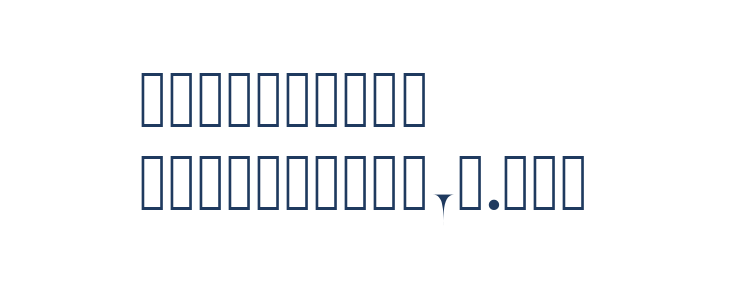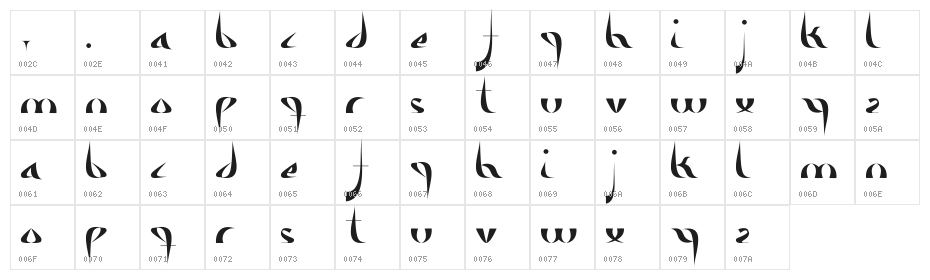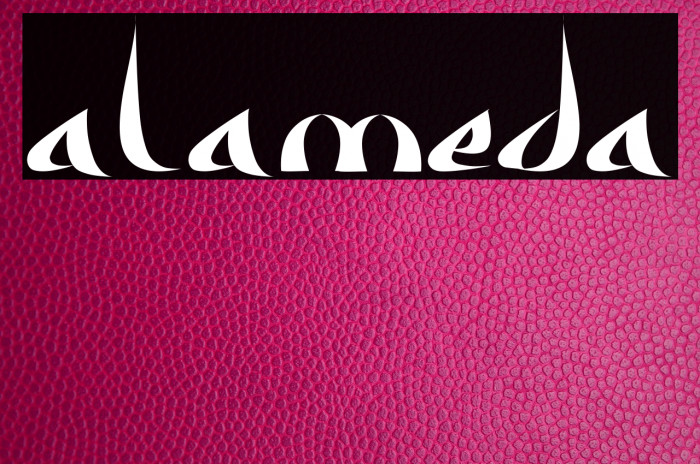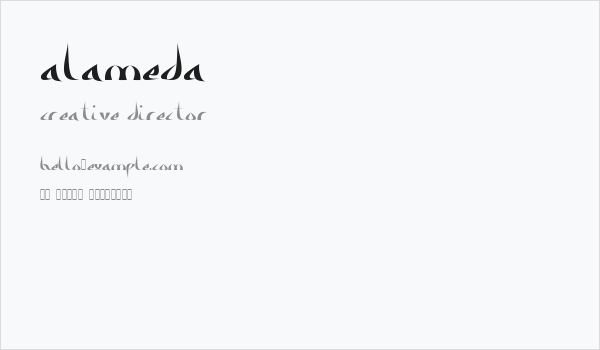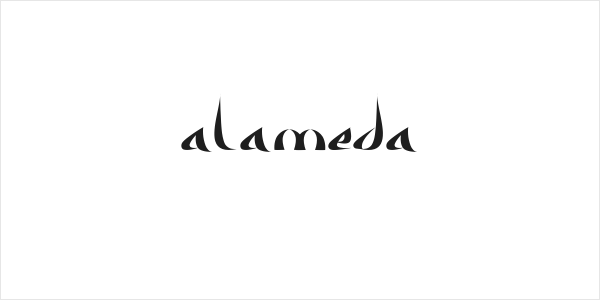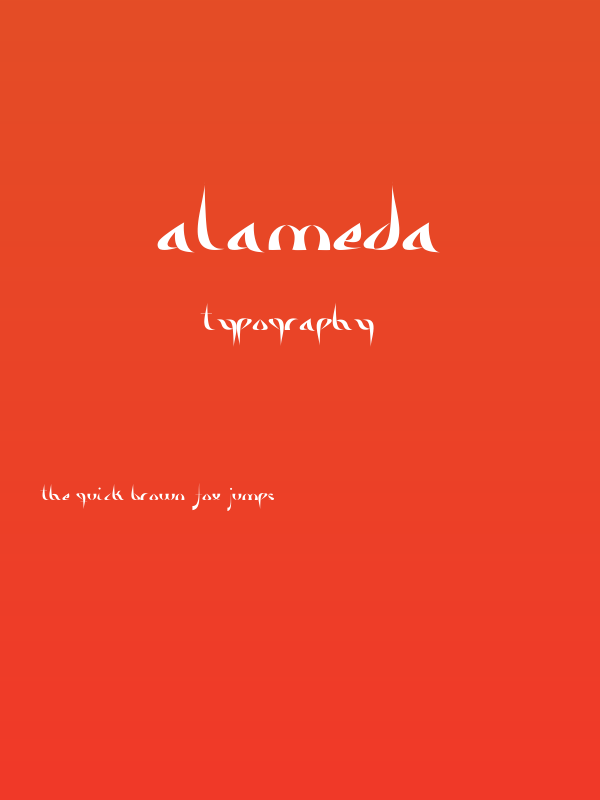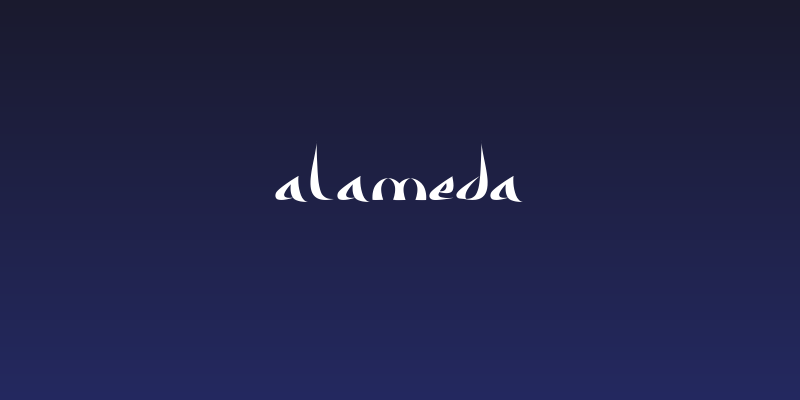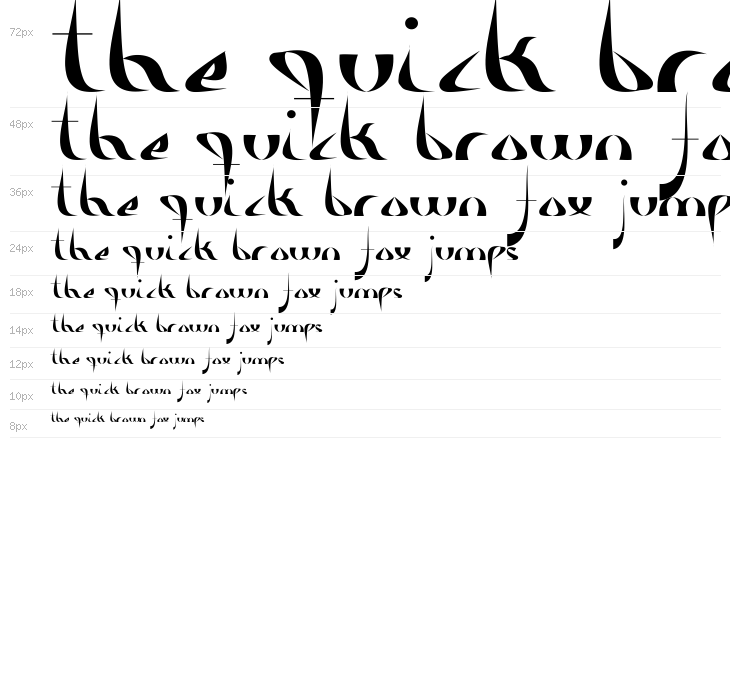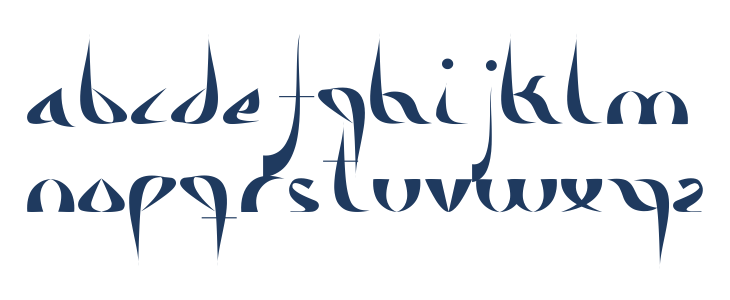
Alameda Font
Alameda Description
This font features a unique and artistic design with sharp, angular strokes and a high contrast between thick and thin lines. The characters exhibit a modern and avant-garde style, characterized by their elongated and pointed serifs. The overall appearance is both elegant and edgy, making it suitable for creative and bold design projects. The letters have a distinct geometric influence, with some characters displaying asymmetrical forms that add to the font's dynamic and unconventional look.
| Proposed Projects | Ideal for branding, logos, poster design, and editorial layouts that require a modern and artistic touch. |